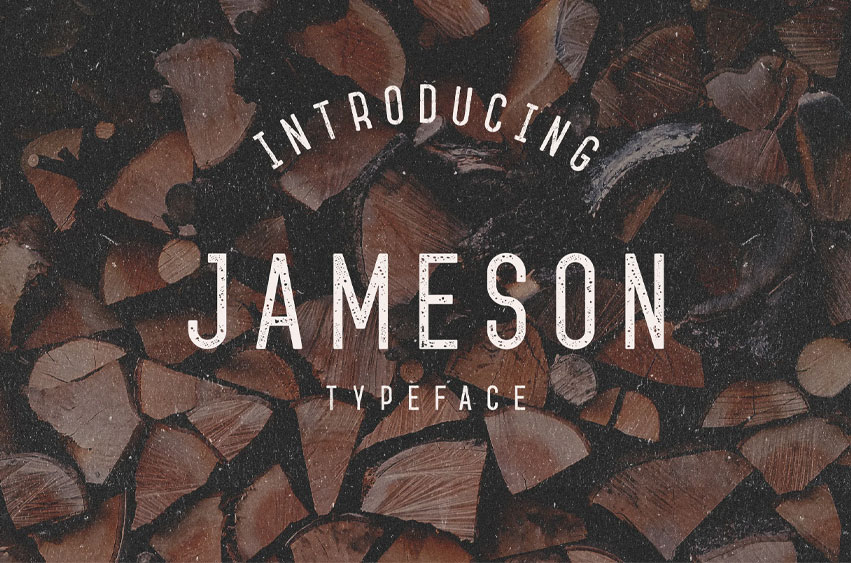
Jameson Typeface Font
Jameson Typeface Font was created for half year, we prepared at the initial stage of the five styles of which three has unique effects scrapes, perfect parity weight and width font makes it more versatile to use for small labels, as well as large.
Five Styles:
• Base
• Round
• Splash
• Press
• Rough